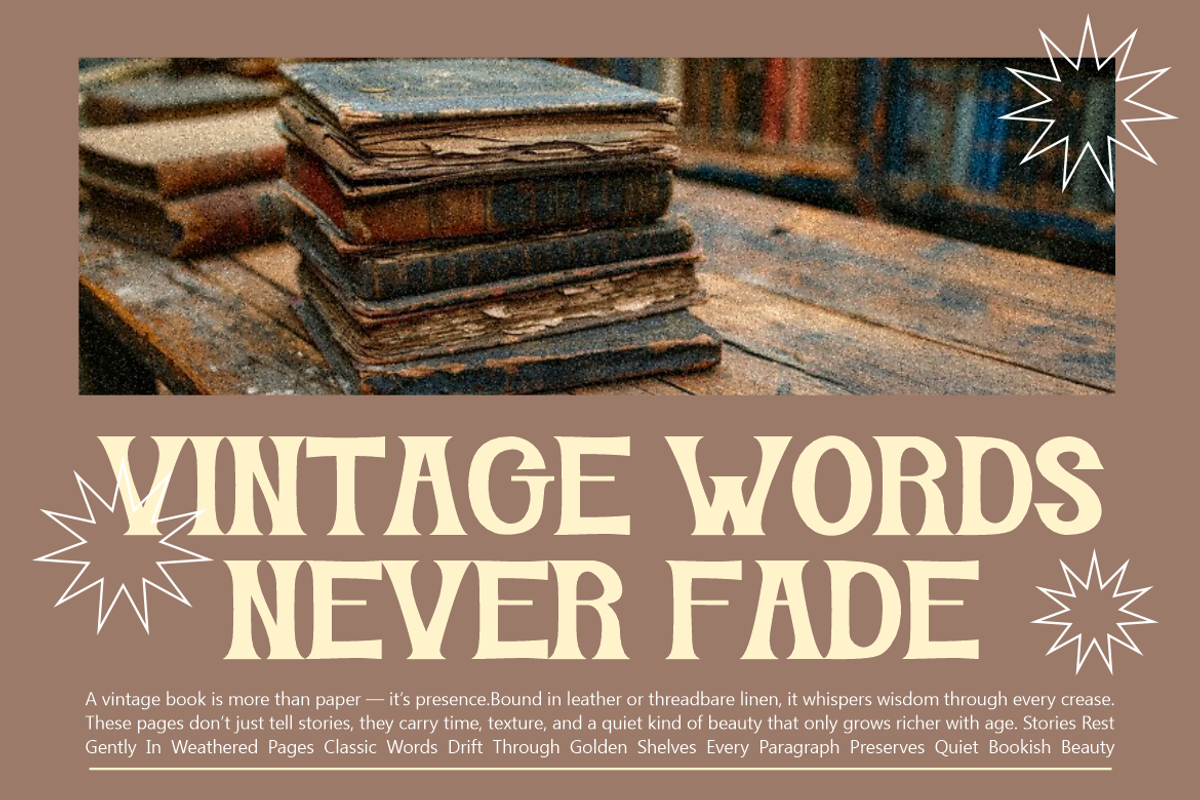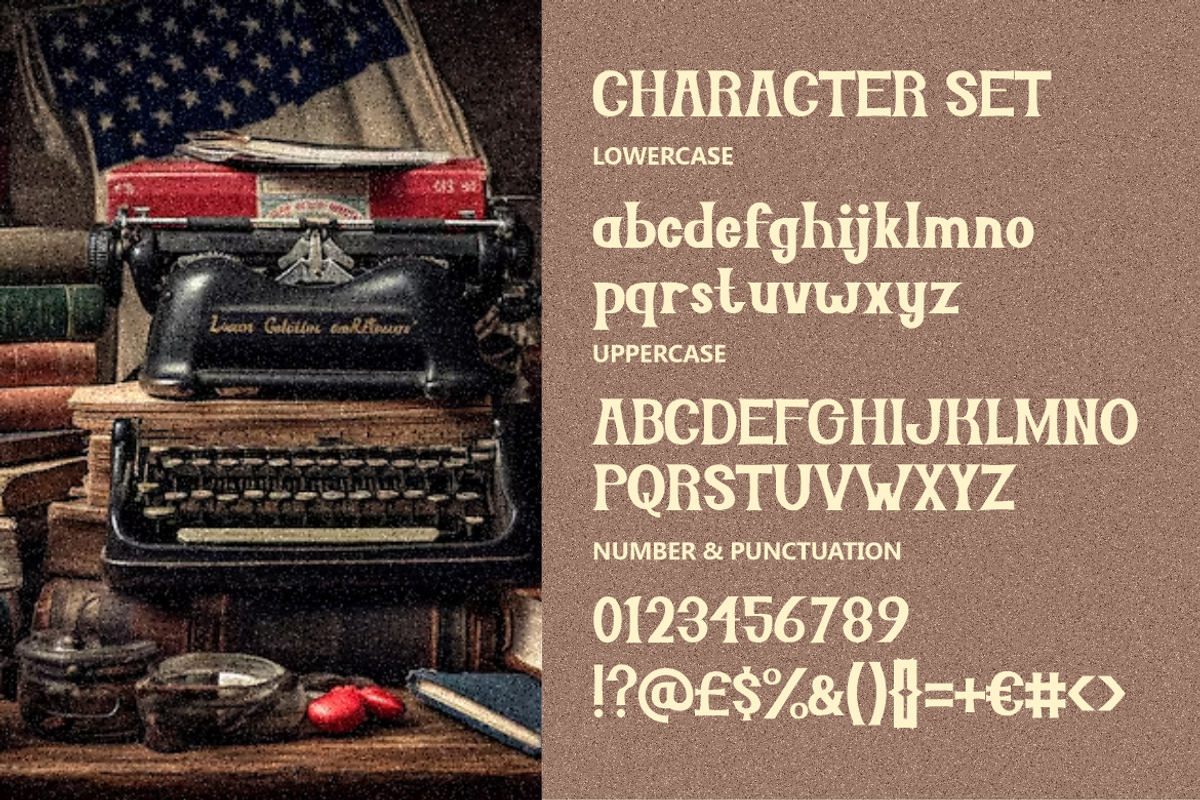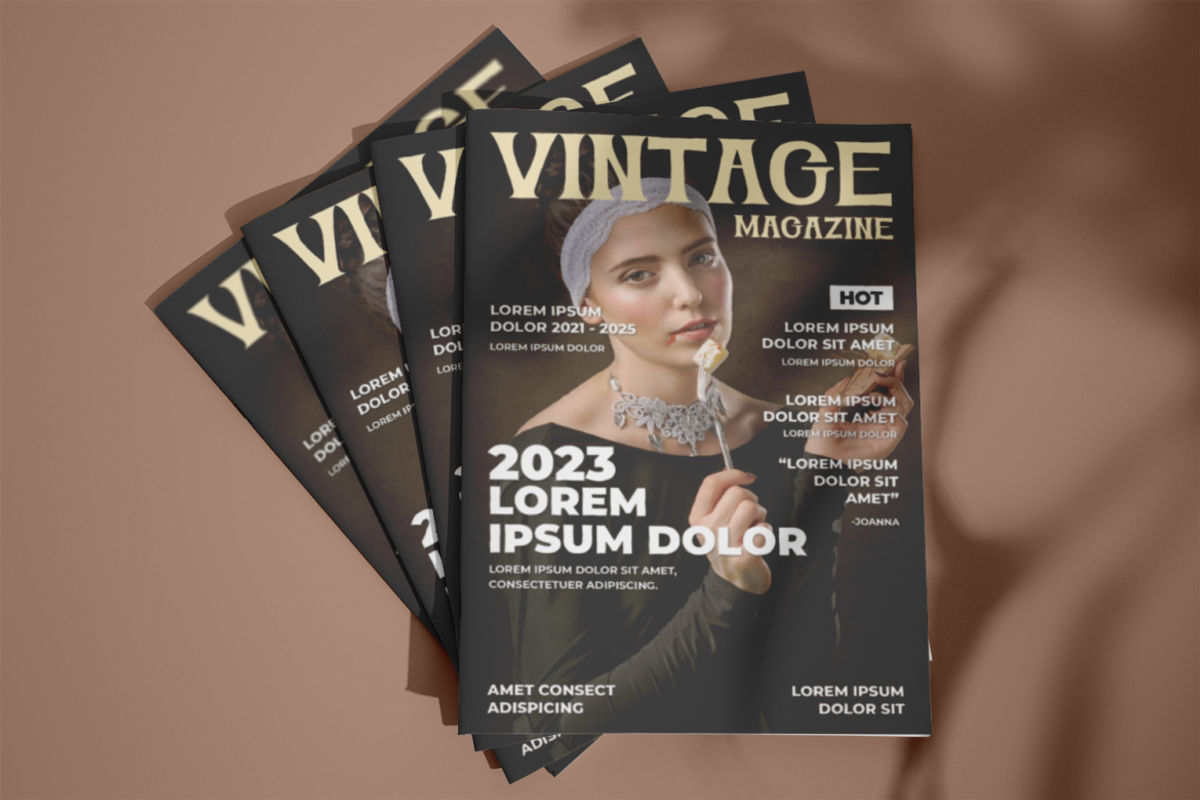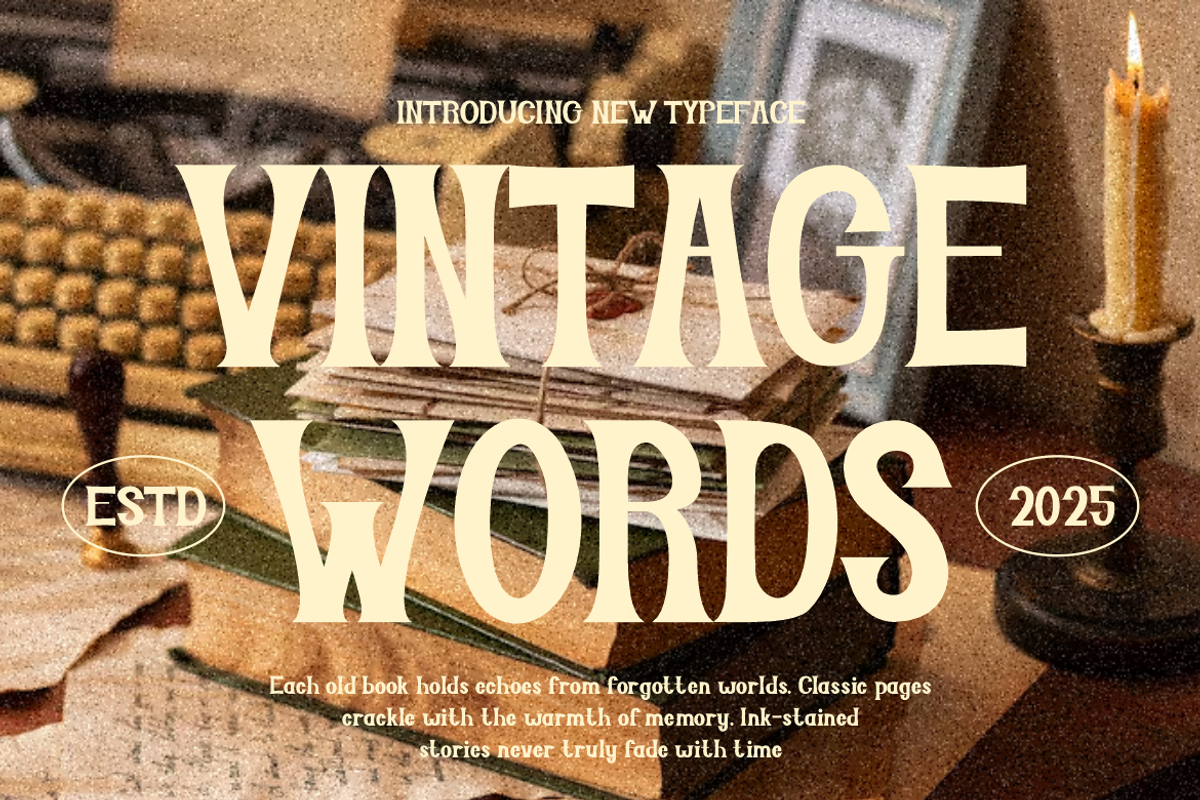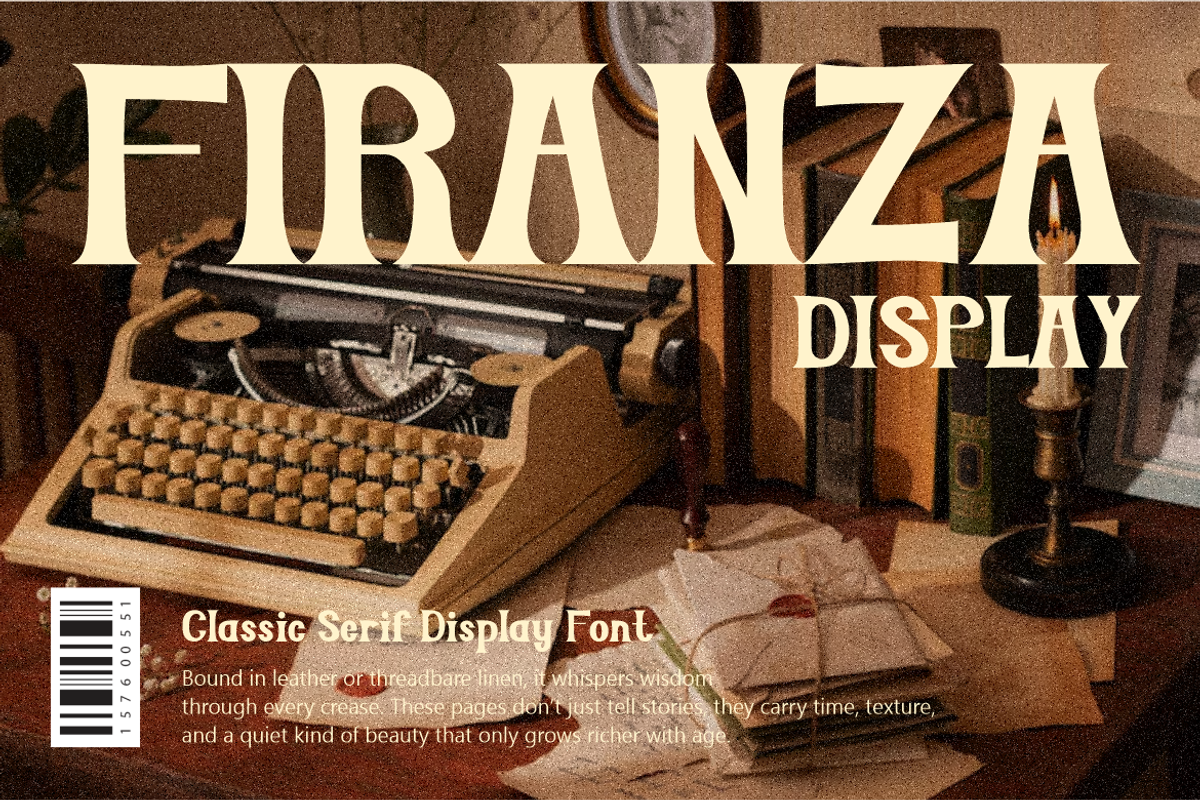
Firanza Display - Classic Serif Font
Firanza Display is a refined serif typeface inspired by the timeless elegance of vintage editorial design. With soft curves, sharp serifs, and graceful proportions, Firanza evokes the sophistication of classic book covers, antique posters, and literary magazines. Each letterform is crafted to mimic the drama of typewriter nostalgia while embracing the clarity of modern digital aesthetics. The font shines in uppercase display use but remains readable across various media formats. Firanza’s distinct presence suits editorial headers, vintage-themed branding, and cinematic titles.
Whether you're designing a historical novel, luxury brand identity, or period-style packaging, Firanza Display delivers unmatched character and charm. The font pairs especially well with muted color palettes, old photographs, and textured backgrounds to maximize its retro appeal. Its versatile glyph set includes uppercase, lowercase, punctuation, and numerals, making it suitable for both bold statements and detailed design systems. Firanza Display is a powerful choice for creators seeking depth, emotion, and legacy in their visual work.